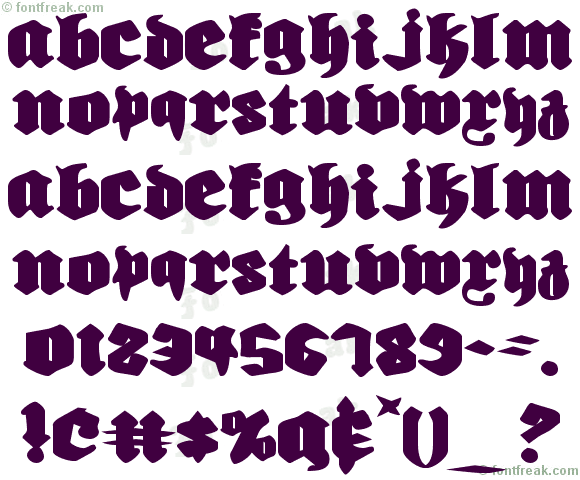
Biergärten Rotalic
About Biergärten Rotalic
The Biergärten Rotalic font, designed by Daniel Zadorozny in 2008, is a striking display typeface that captures the essence of festive gatherings and cultural celebrations. This font falls into the decorative category, characterized by its unique blend of condensed letterforms and playful italic slant. The stroke weight is bold and impactful, offering a strong contrast that enhances visibility while maintaining a sense of elegance. The spacious spacing between letters adds to its legibility, making it an excellent choice for various design applications.
Biergärten Rotalic is particularly well-suited for use in wedding invitations, where its festive flair can set a joyful tone. It also shines in movie posters, especially for films with themes of celebration or cultural heritage. Restaurant menus can benefit from the font's eye-catching design, drawing attention to specialty dishes and drink offerings. Additionally, it can be effectively utilized in event flyers, ensuring that your message stands out in crowded spaces. The font appeals to graphic designers, small business owners, and content creators looking to infuse their projects with a lively aesthetic.
What sets the Biergärten Rotalic font apart is its distinctive personality and versatility. It combines traditional design elements with a modern twist, making it suitable for both casual and formal contexts. The font's robust presence evokes a sense of community and warmth, making it an ideal choice for any project that aims to celebrate togetherness. For those interested in enhancing their designs, the Biergärten Rotalic font free download offers a fantastic opportunity to incorporate this unique typeface into your creative toolkit.